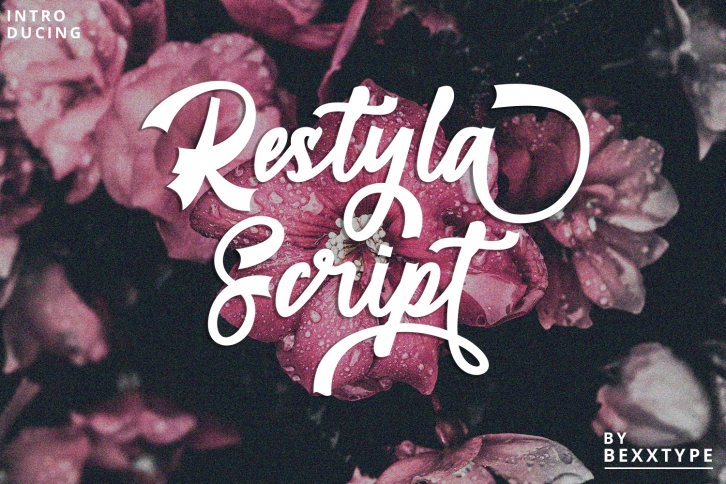
Restyla Script is a beautiful font that was designed by Bexxtype. It's a great choice for designers and creatives who need such a font. It was released on June 20, 2019 and the file size is 5.71 MB. Restyla Script may give a more youthful, expressive and casual look to your project. It is a very beautiful, refined, elegant, and high-quality font.